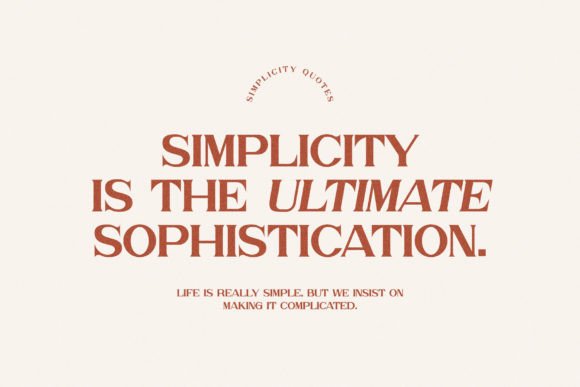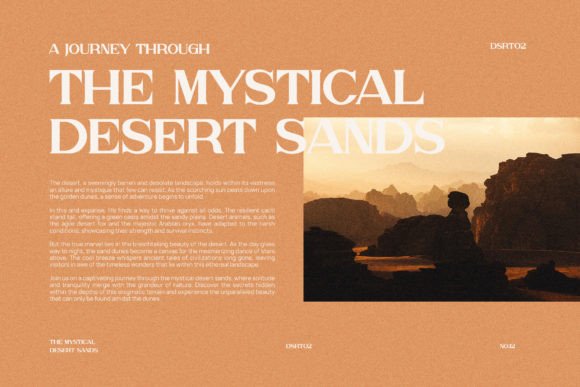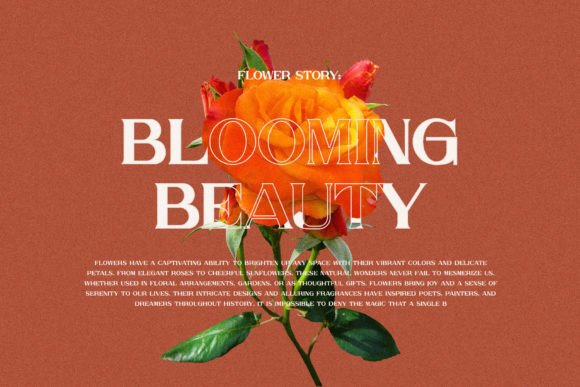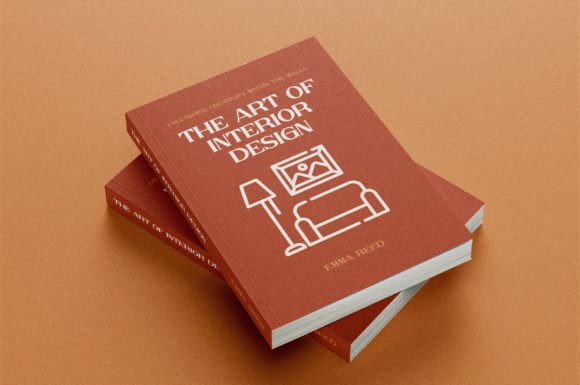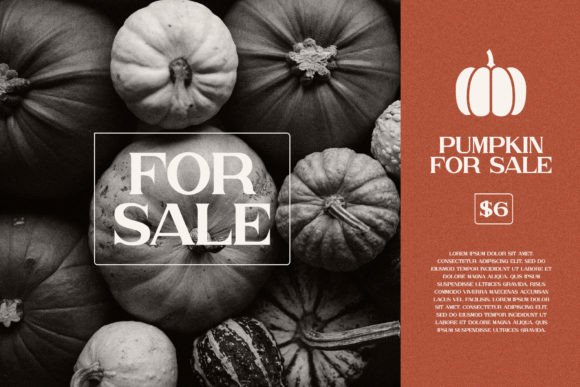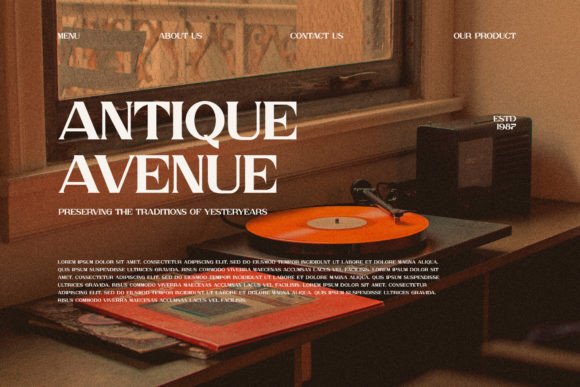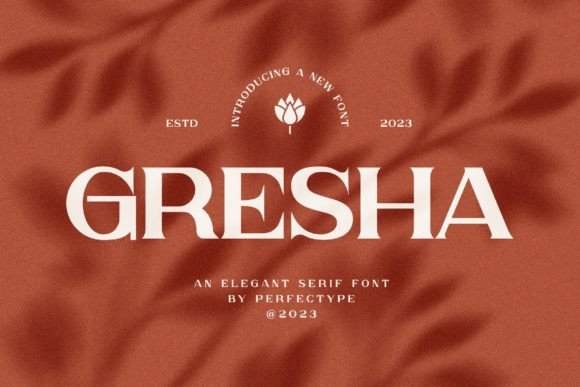
Gresha Font: Elevate Your Designs with Elegance and Sophistication
In the world of typography, a font can make or break a design. For designers and crafters seeking to add a touch of elegance and modernity to their projects, the Gresha font is an excellent choice. This stunning serif typeface combines classic sophistication with a contemporary twist, making it perfect for a wide range of applications.
What is Gresha Font?
Gresha is a beautifully crafted serif font that exudes refinement and poise. Its elegant lines, precise curves, and balanced proportions create a sense of luxury and sophistication, making it ideal for designs that require a high level of readability and visual appeal.
Key Features of Gresha Font
- Elegant Serif Design: Gresha’s serif design adds a touch of classic elegance to any project, making it perfect for branding, logos, and high-end designs.
- Classy and Modern Style: This font seamlessly blends traditional and modern elements, ensuring your designs look both sophisticated and contemporary.
- High Readability: Gresha’s clear and precise letterforms make it easy to read, even at small sizes, making it suitable for body text and headings.
- Versatile: From wedding designs and social media posts to product packaging and labels, Gresha is versatile enough to be used in a wide range of applications.
Uses of Gresha Font
Gresha’s versatility makes it an excellent choice for various design projects, including:
- Branding Projects: Establish your brand’s identity with a sophisticated and elegant font that communicates luxury and refinement.
- Logos: Create a lasting impression with a custom logo that incorporates Gresha’s unique serif design.
- Wedding Designs: Add a touch of romance and elegance to your wedding invitations, programs, and decorations.
- Social Media Posts: Elevate your social media presence with eye-catching graphics and typography that sets you apart.
- Advertisements: Grab attention and communicate your message with clarity and style.
- Product Packaging: Make your products stand out on store shelves with beautiful and functional packaging design.
- Product Designs: Incorporate Gresha into your product designs, such as labels, tags, and instruction manuals.
- Photography: Add a professional touch to your photography with elegant watermarks and captions.
- Invitations: Create stunning invitations for special occasions, such as birthdays, anniversaries, and graduations.
- Stationery: Elevate your stationery, including business cards, letterheads, and envelopes, with a sophisticated font.
Why Choose Gresha Font?
With so many fonts available, why choose Gresha? Here are a few compelling reasons:
- Unique Design: Gresha’s distinctive serif design sets it apart from other fonts, ensuring your designs stand out.
- High-Quality: This font is crafted with attention to detail, ensuring a high level of readability and visual appeal.
- Versatile: As mentioned earlier, Gresha is suitable for a wide range of applications, making it a valuable addition to your font library.
In conclusion, the Gresha font is an excellent choice for designers and crafters seeking to add a touch of elegance and sophistication to their projects. Its unique serif design, classy and modern style, and high readability make it perfect for a wide range of applications. Whether you’re working on branding projects, logos, wedding designs, or social media posts, Gresha is sure to elevate your designs and make them stand out.